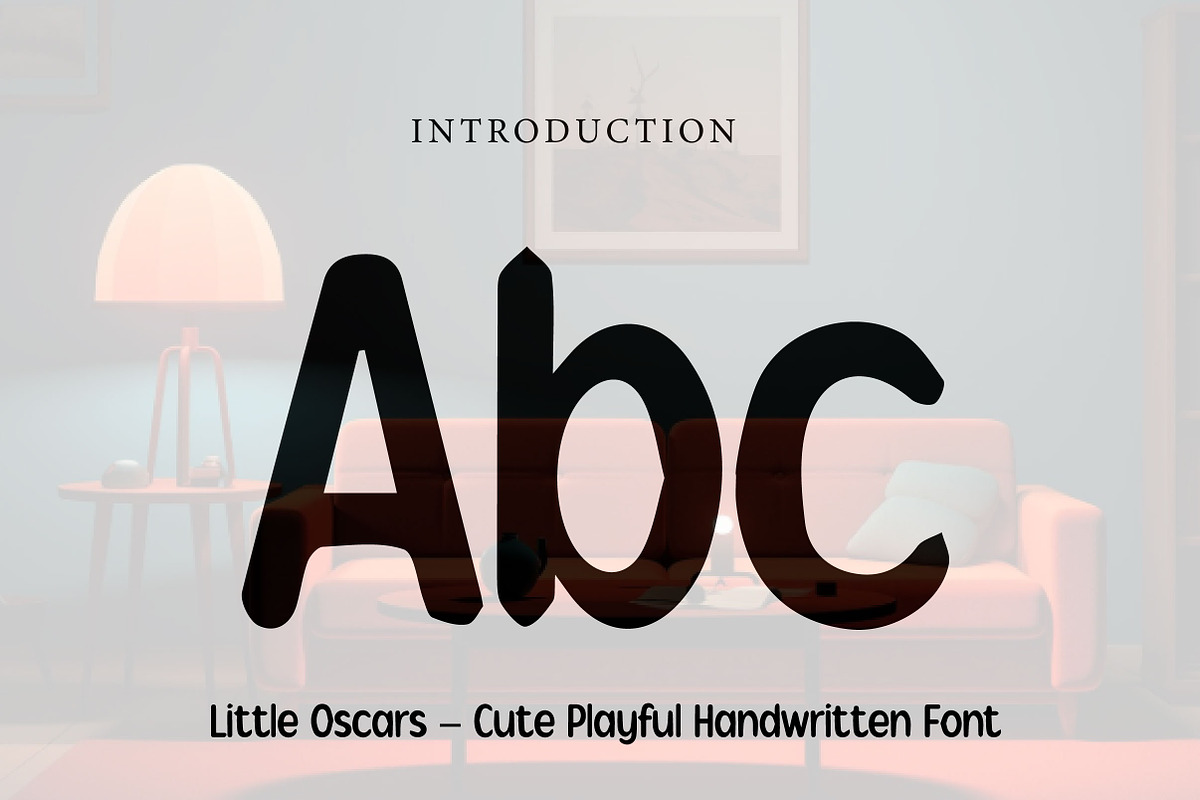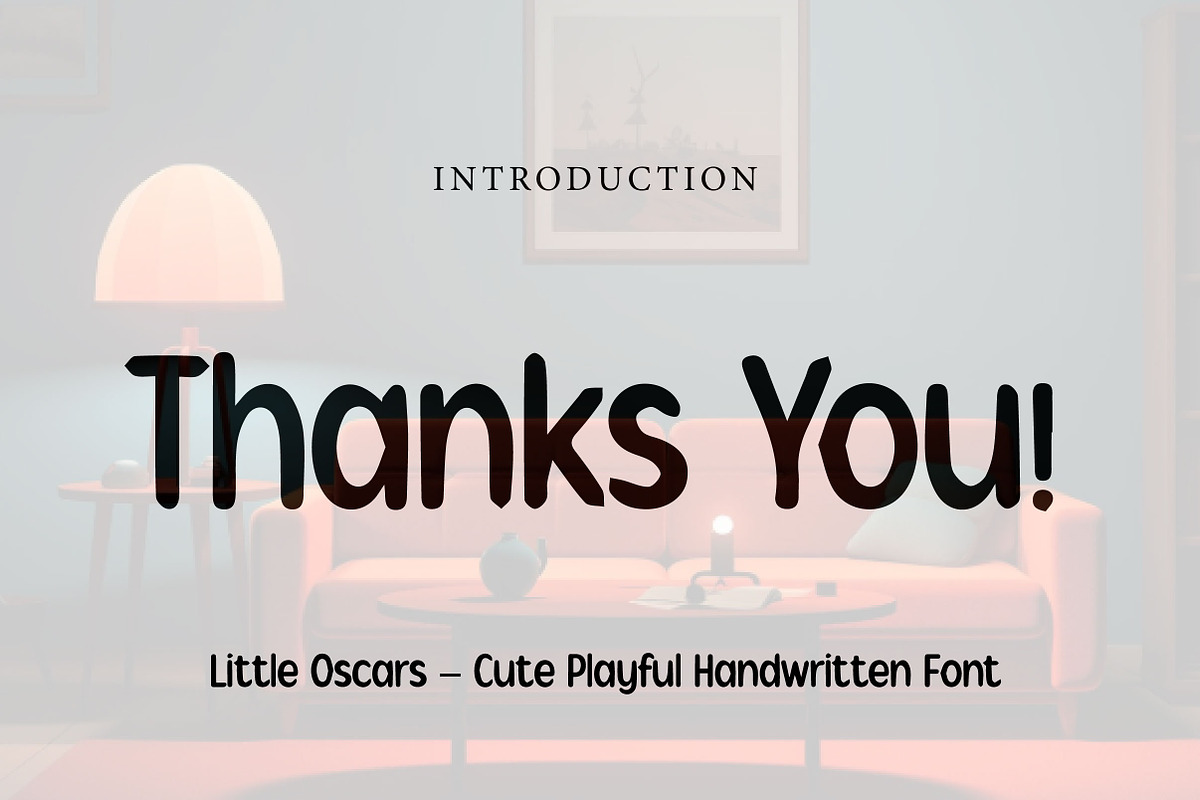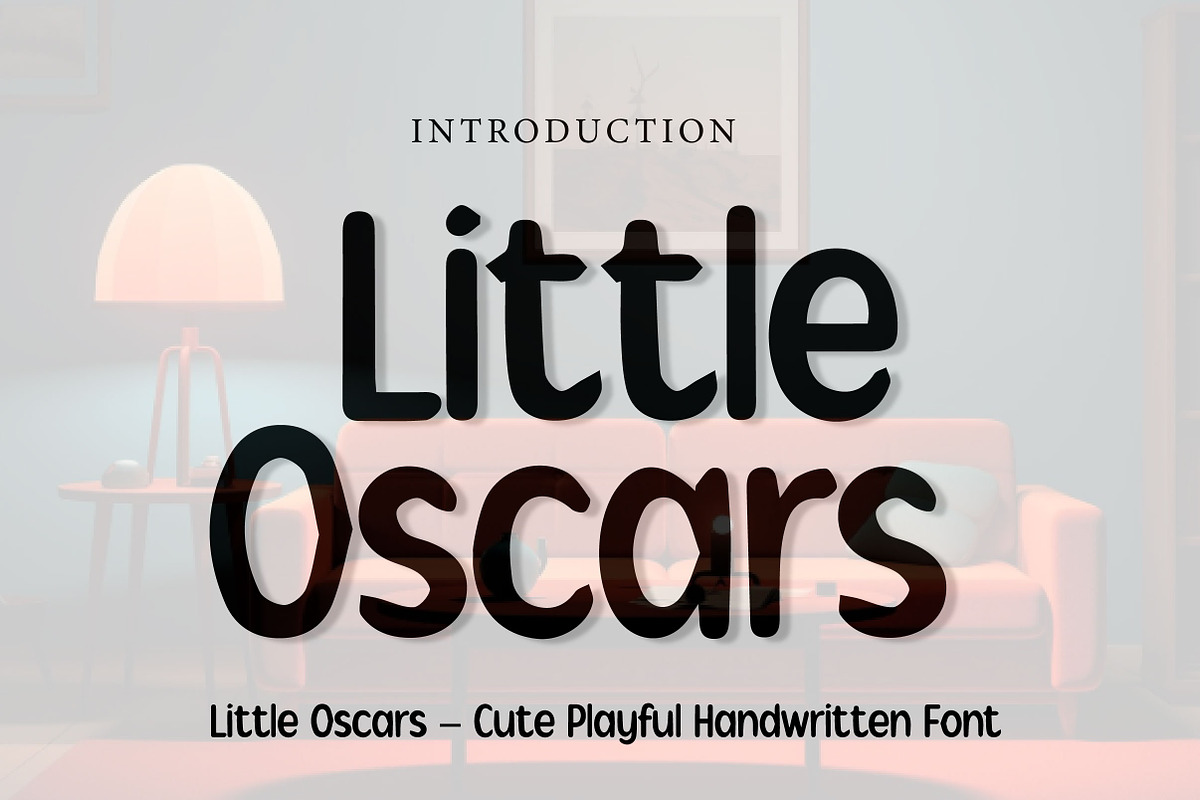
Little Oscars
Little Oscars – Cute Playful Handwritten Font
Little Oscars is a cute, soft, and playful handwritten font, perfect for kids designs, school projects, branding, packaging, invitations, and cheerful creative projects.
Little Oscars is a sweet and friendly handwritten font designed to bring fun, warmth, and personality into your designs. With its rounded shapes, soft curves, and casual handwritten style, this font creates a charming and approachable look that feels both playful and modern.
Its clean and cheerful character makes Little Oscars perfect for projects that need a cute and lovable touch. Whether you are designing kids branding, school materials, birthday invitations, product packaging, social media graphics, posters, or playful logo concepts, this font helps your typography stand out in a warm and memorable way.
The balanced letterforms keep your text easy to read while adding a soft handcrafted feel. Suitable for both print and digital use, Little Oscars is a wonderful choice for designers who want a font that feels friendly, fun, and full of charm.
Perfect For Kids branding School and educational materials Birthday invitations Product packaging Social media graphics Posters and flyers Stickers and labels Cute logos and headlines Craft and DIY projects Cheerful typography layouts Font Features Uppercase letters Lowercase letters Numbers & punctuation Cute handwritten style Soft and rounded shapes Friendly and playful look Perfect for display use